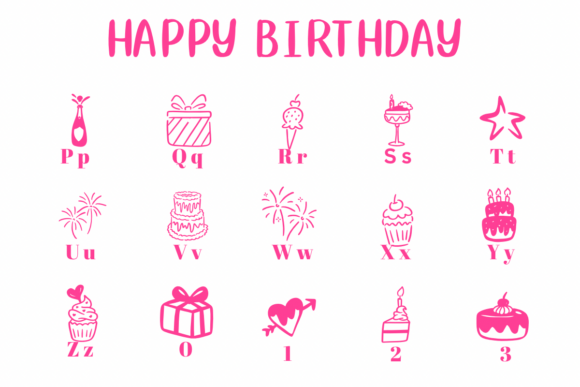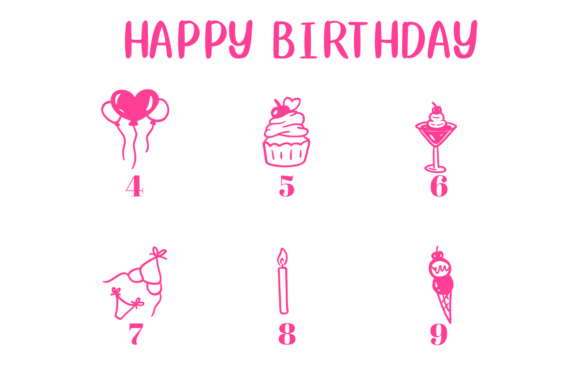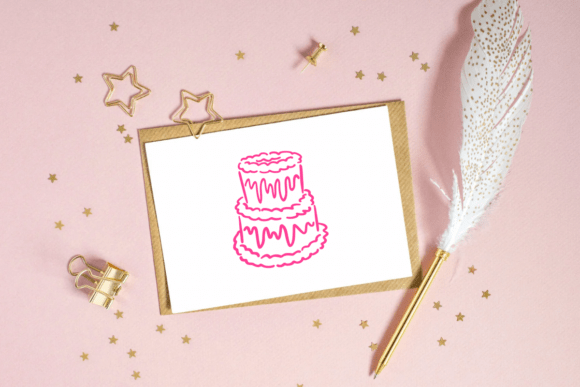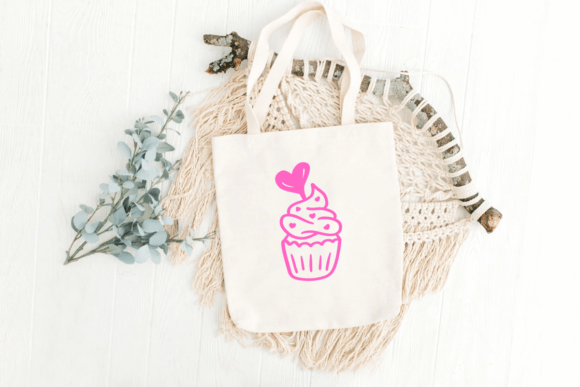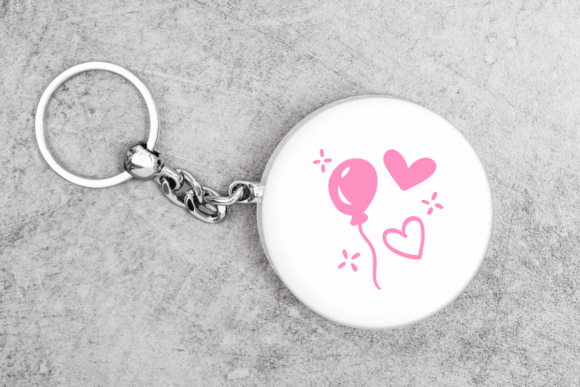
Celebrating Creativity with the Happy Birthday Font
As a designer, you’ve probably experienced that moment of pure inspiration when a project comes together in a flash of creativity. You see the vision, the colors, the typography – everything aligns perfectly. It’s a feeling that’s hard to replicate, but with the right tools, you can get closer to achieving that magic.
Enter the Happy Birthday Font, a charming dingbats font designed to add a playful touch to your designs. This font is more than just a pretty face – it’s a versatile tool that can elevate your creative ideas and bring a smile to your audience’s faces. Whether you’re designing a birthday card or a promotional campaign, the Happy Birthday Font is the perfect addition to your toolkit.
As a valuable resource for designers, the Happy Birthday Font offers endless possibilities for creative expression. With its cute and whimsical design, you can add a personal touch to your projects and make them truly special. So why not give it a try and see the amazing results you can achieve with the Happy Birthday Font?
Key Features of “Happy Birthday Font”
- Unique Characteristics: The font features colorful and playful illustrations of birthday candles, balloons, and other festive elements, making it perfect for creating eye-catching and fun designs.
Happy Birthday Font Review
As a designer, I was excited to dive into the “Happy Birthday Font” and see what it had to offer. Here’s my honest review.
- Cute and playful design: The font has a fun and bubbly feel to it, making it perfect for birthday invitations, decorations, and other celebratory materials.
- Variety of styles: The font comes in different weights and styles, allowing you to mix and match to create a unique look.
- Limited versatility: While the font is great for birthday-themed designs, it may not be the best choice for other types of projects.
- No customization options: Once you’ve downloaded the font, there are no options to customize or modify it to fit your specific needs.
- May not be suitable for formal designs: The font’s playful nature may not be suitable for more formal or professional designs.
Overall, I think the “Happy Birthday Font” is a fun and useful tool for designers who specialize in birthday-themed designs. While it may have some limitations, it’s a great option for those who want a cute and playful font to add some personality to their projects.
- Use it in combination with bright colors and decorations to create a festive atmosphere.
- Use it in a variety of contexts, such as birthday invitations, cards, and social media posts.
The Happy Birthday font is commonly used in:
- Birthday invitations and cards.
- Social media posts and online birthday messages.
- Party decorations and signage.